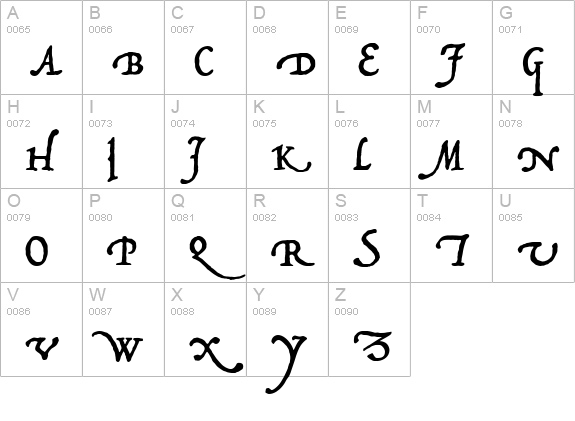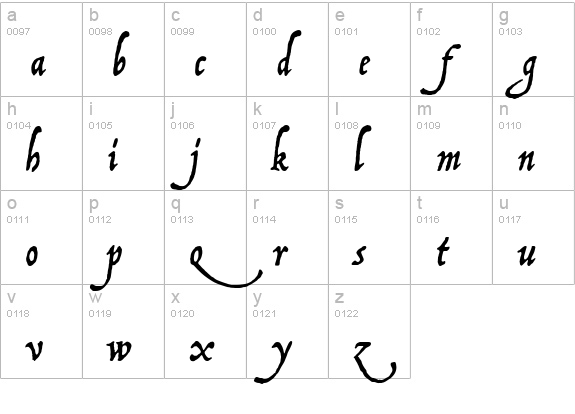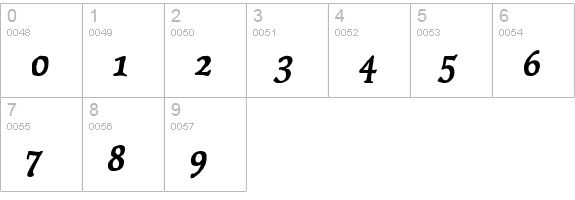
P22 Operina Corsivo Font Details
P22 Operina Corsivo font is a stunning display of calligraphic elegance and historical charm. Inspired by the Renaissance-era calligraphy of Ludovico degli Arrighi, this font exudes a timeless beauty and sophistication. With its graceful curves and flowing strokes, P22 Operina Corsivo captures the essence of classical handwriting in a digital form. What sets P22 Operina Corsivo apart is its versatility and readability, making it ideal for a wide range of design projects. Whether used for branding, invitations, or editorial design, this font adds a touch of refinement and sophistication to any project. The best part is that P22 Operina Corsivo is available for free download at FontsMarket.com. This means that you can easily access this exquisite font and incorporate its beauty into your designs without any cost. Don't miss out on the opportunity to enhance your projects with the timeless elegance of P22 Operina Corsivo font.